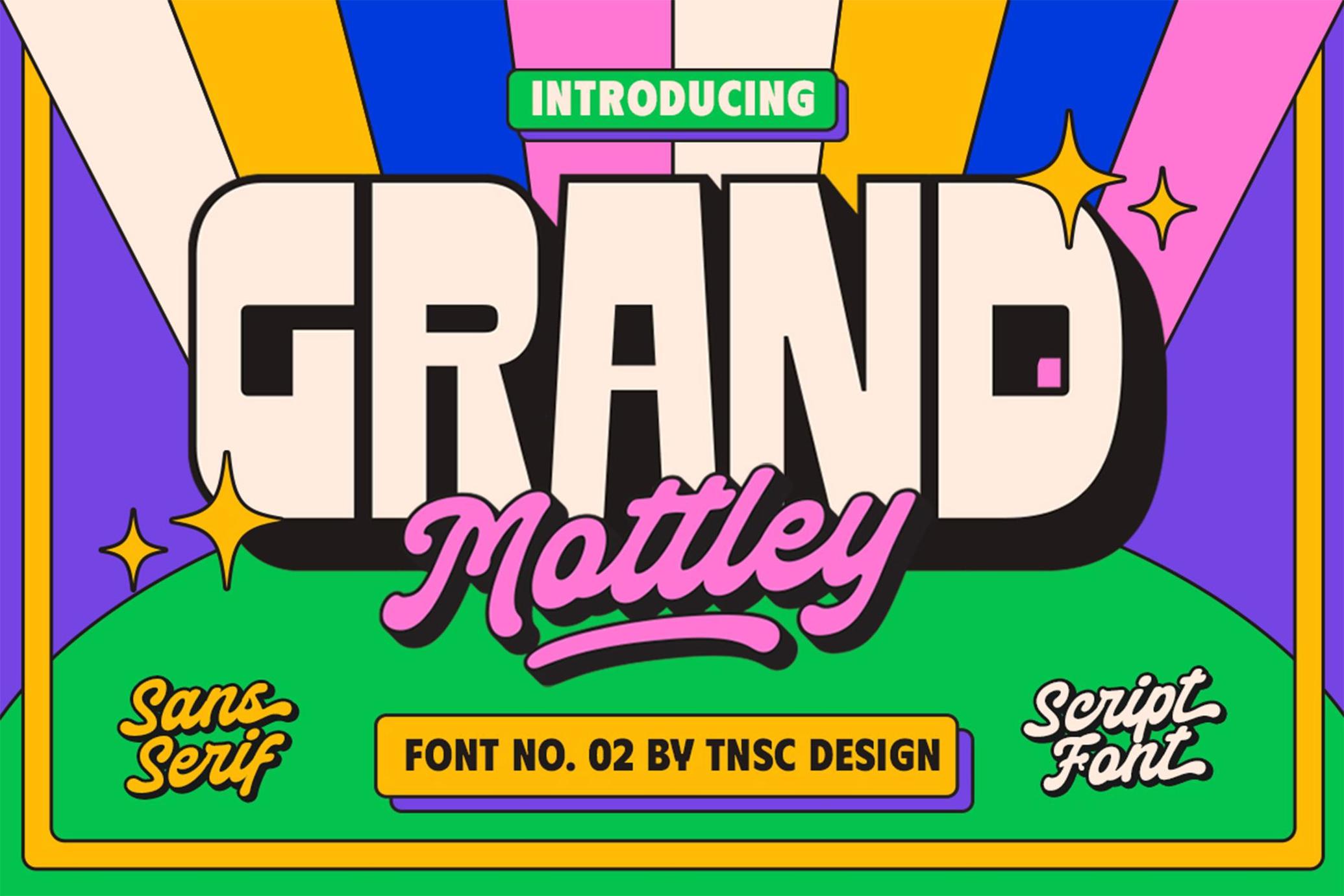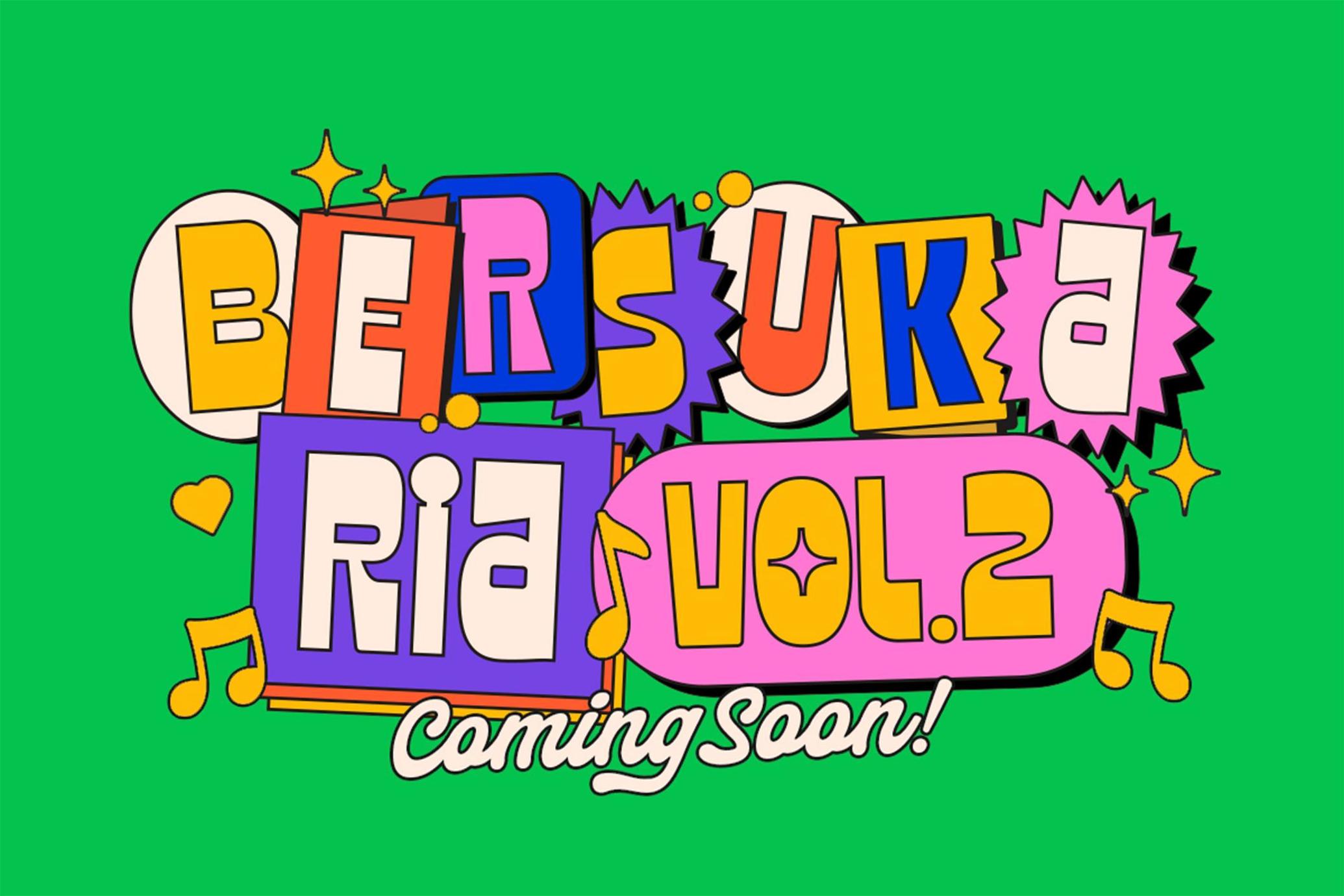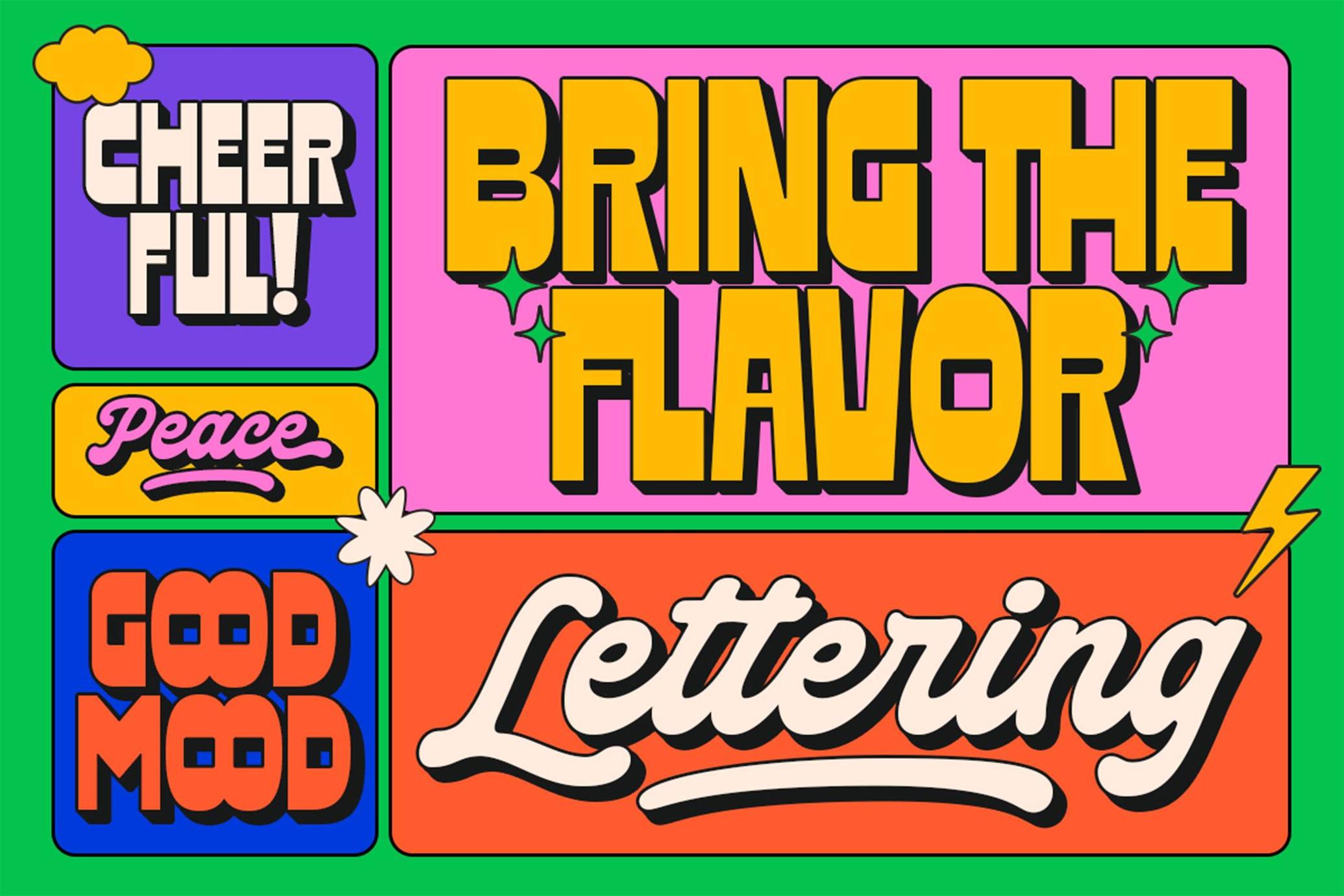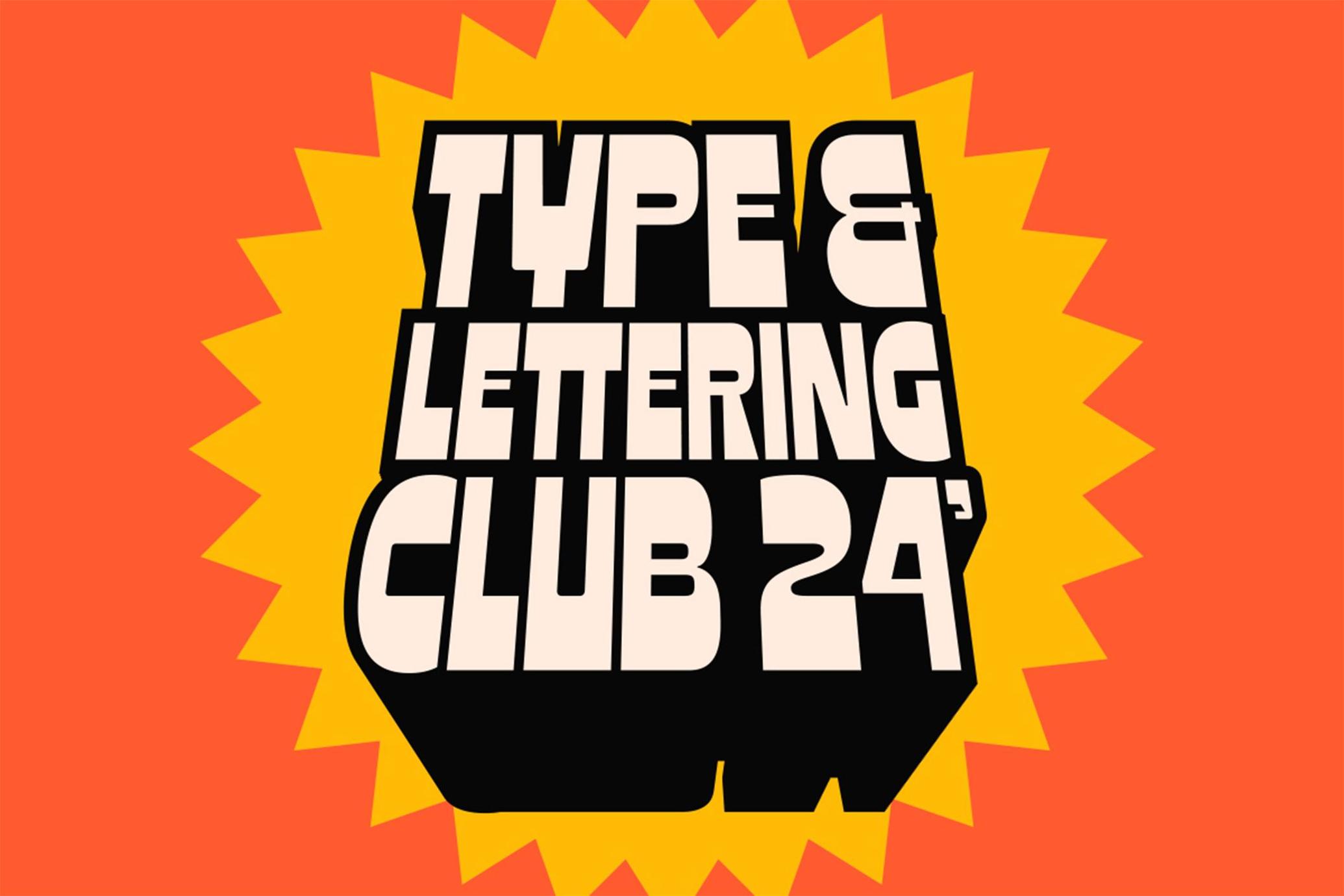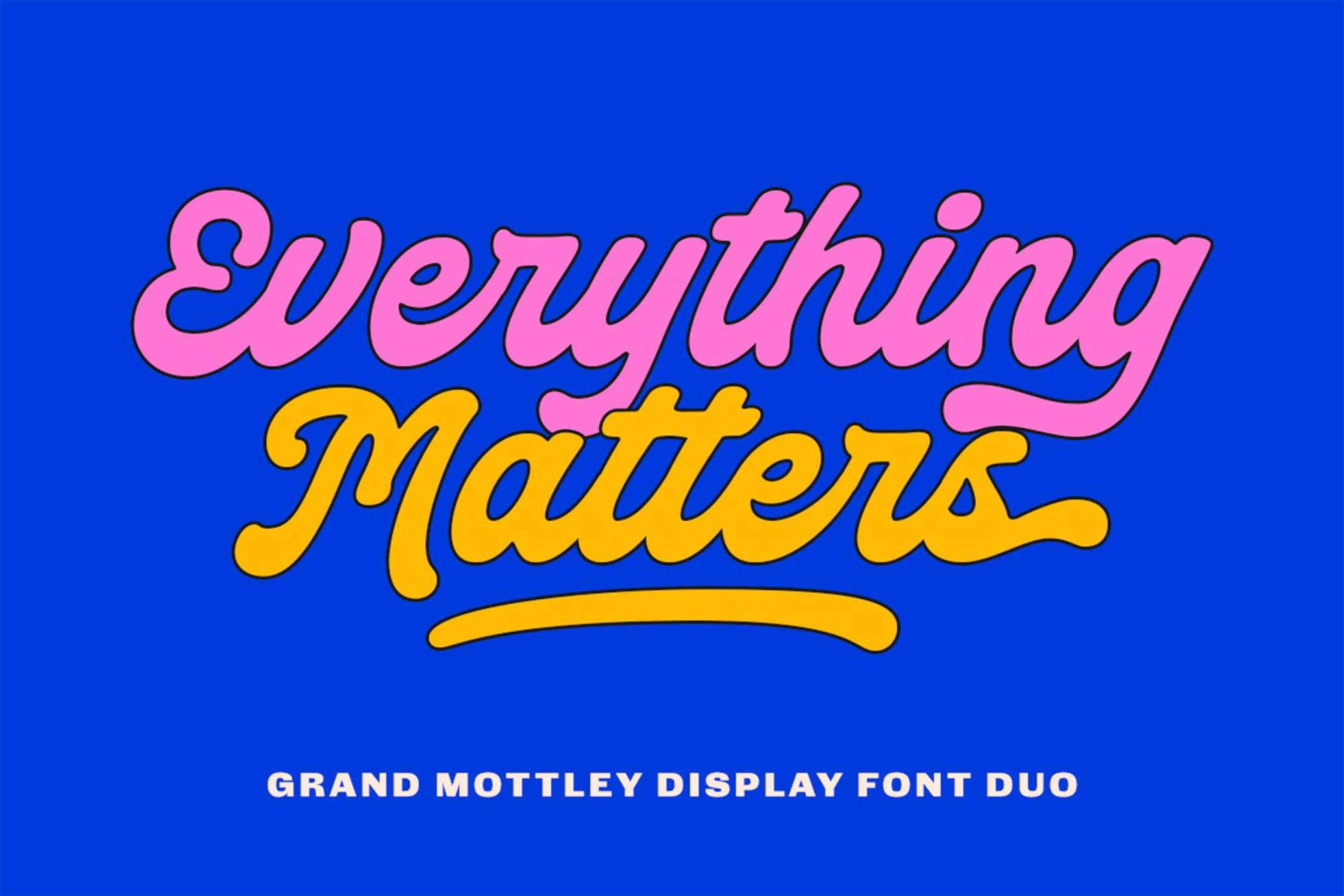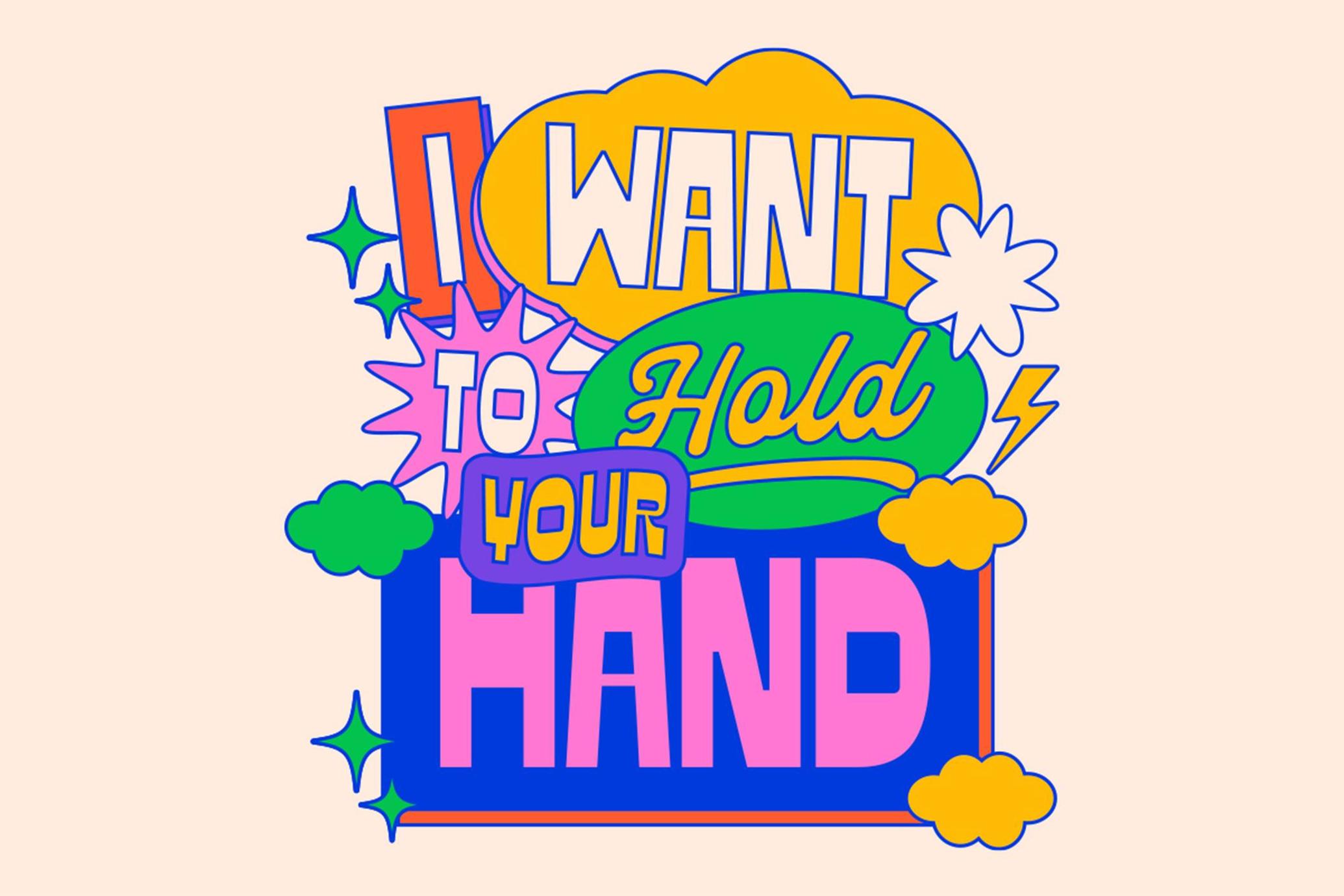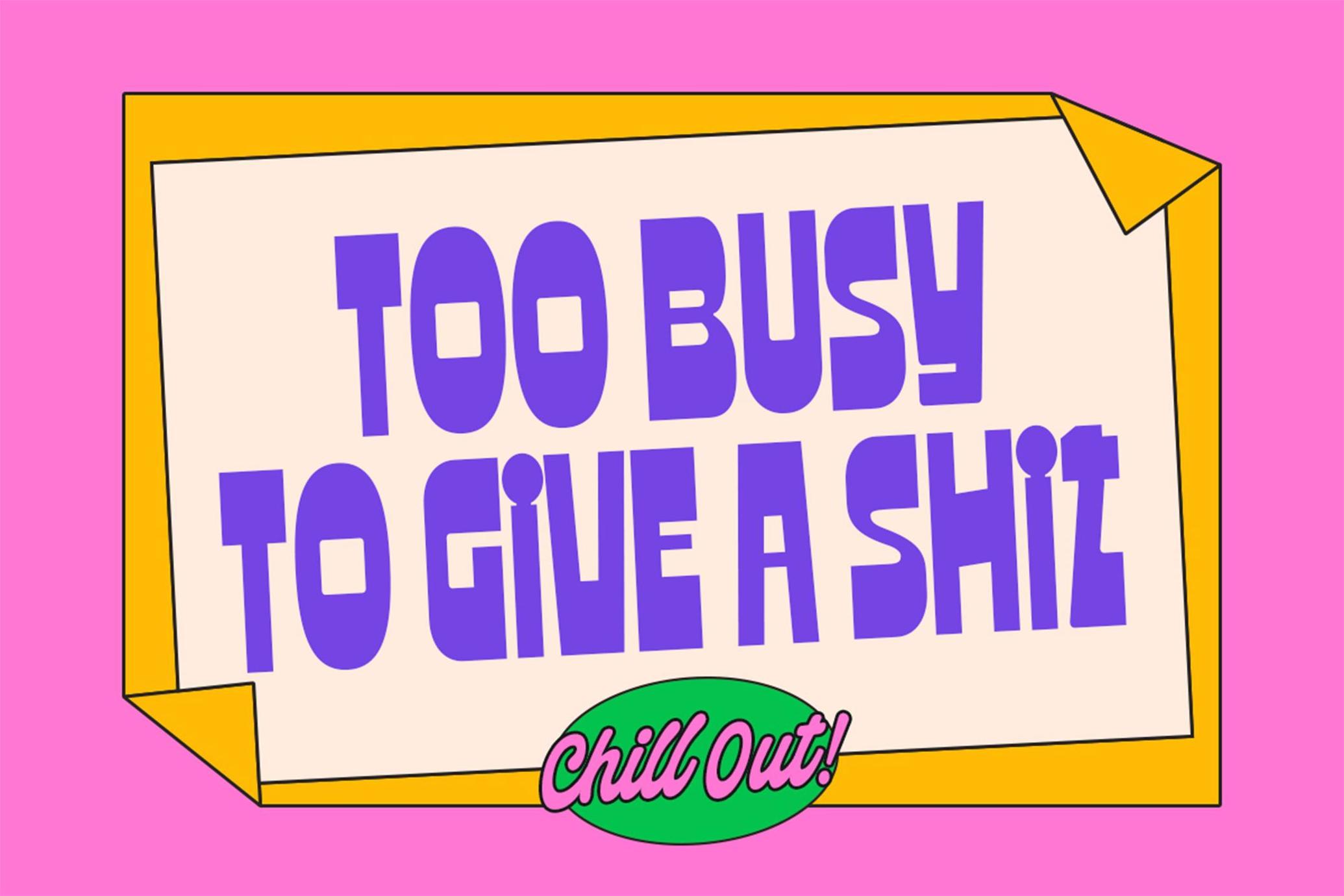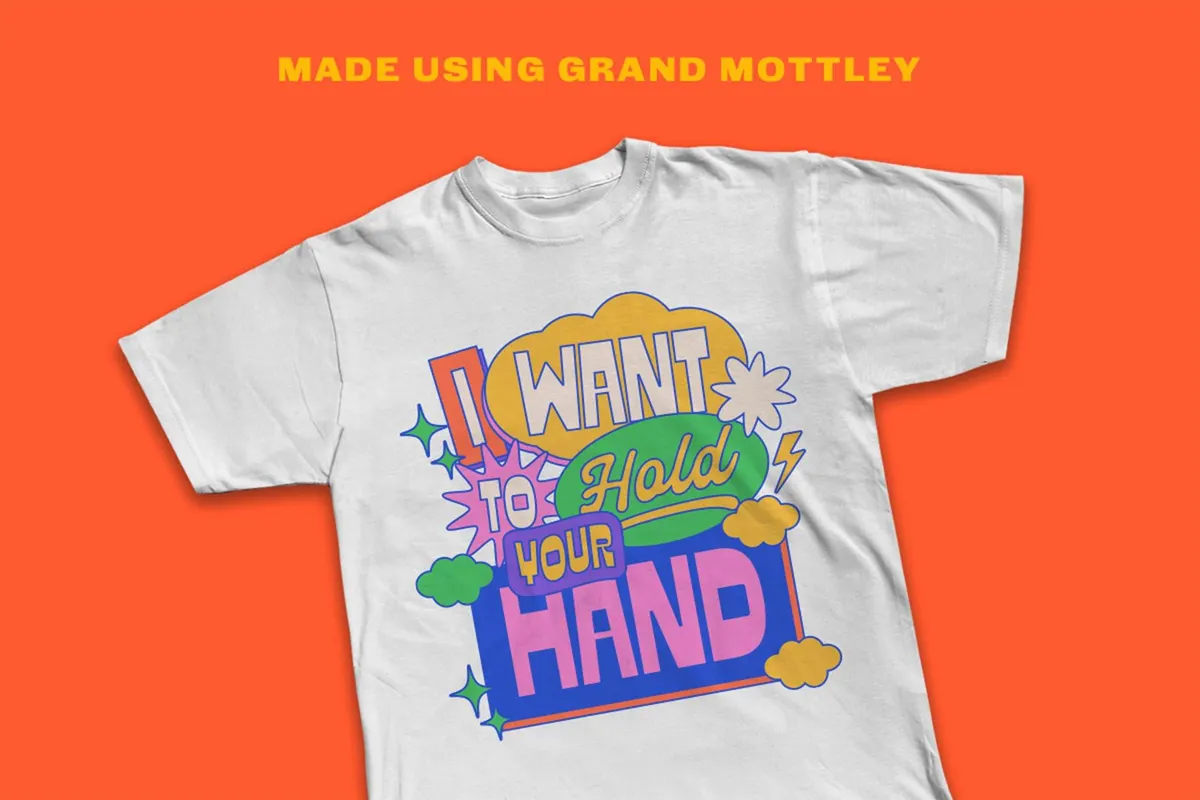
TNSC Grand Mottley - Font Duo
**TNSC Grand Mottley ** - Retro style font with high contrast on sans, and bold script. Very suitable for design titles, posters, music festivals or other contemporary designs. Inspired by 90s hand lettering, retro packaging and retro stuff.